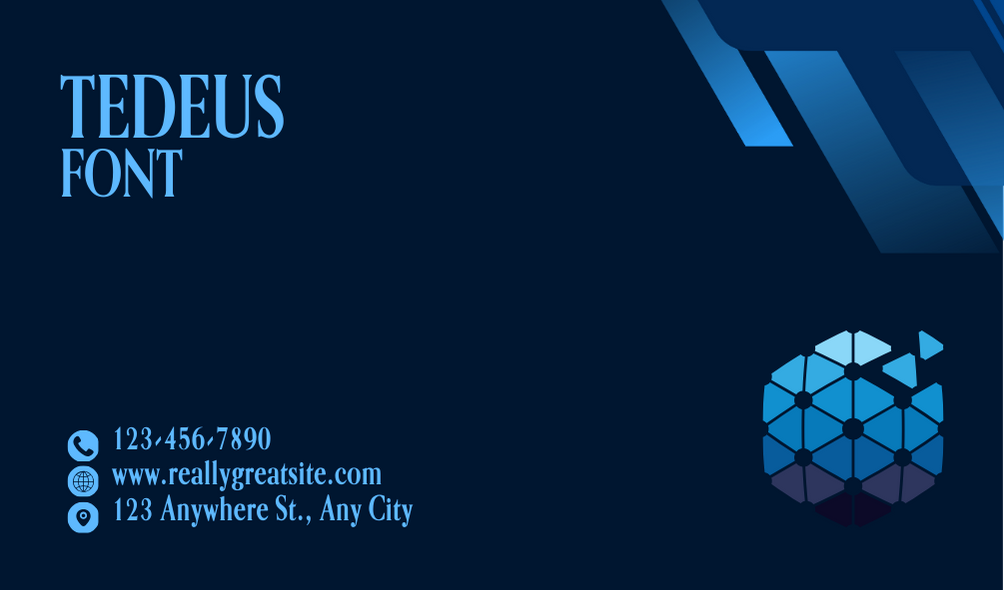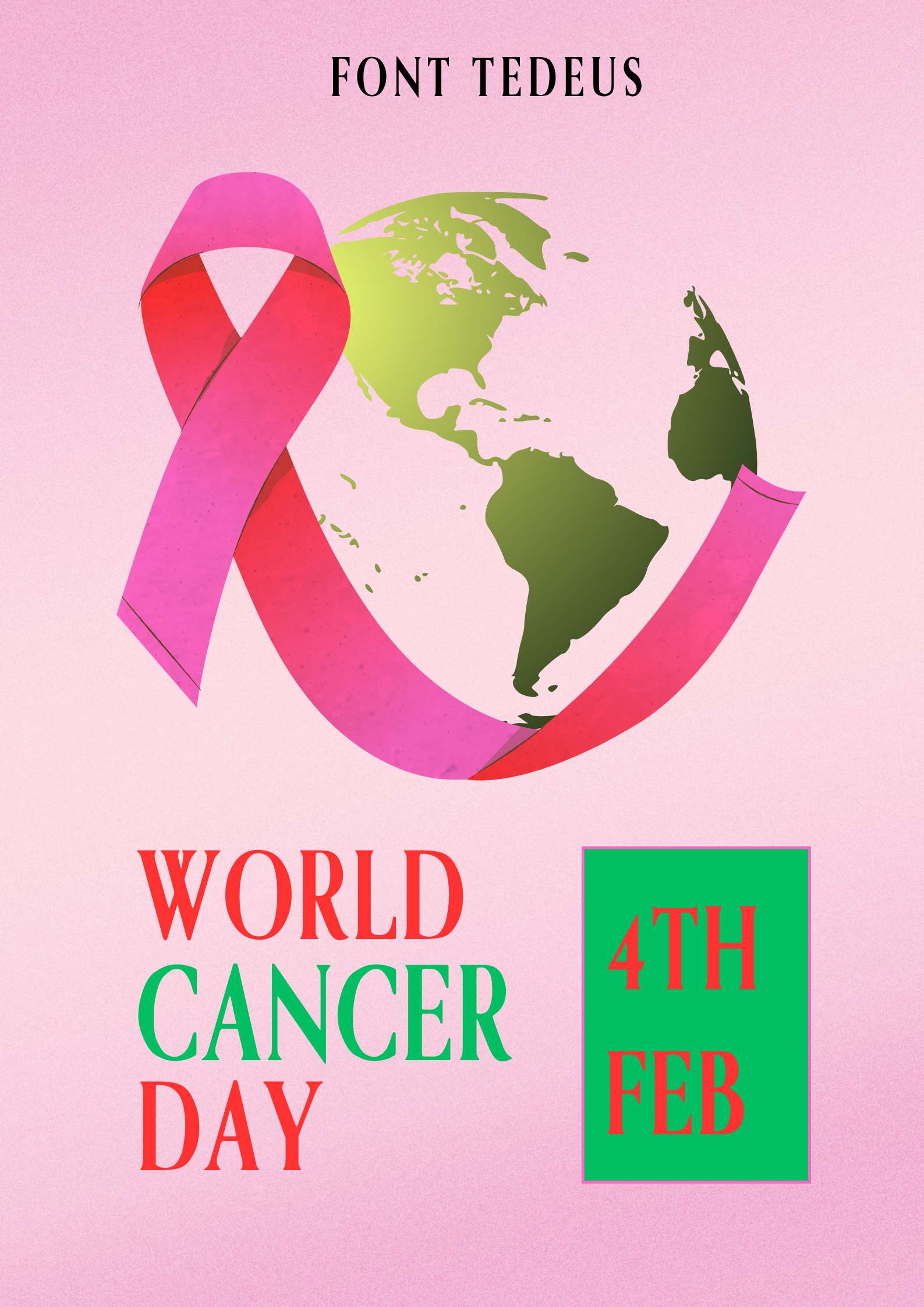
Tedeus is a fun and versatile font that can be used for a variety of designs. It is available in a Regular subfamily, which means that it has a normal weight and no italics.